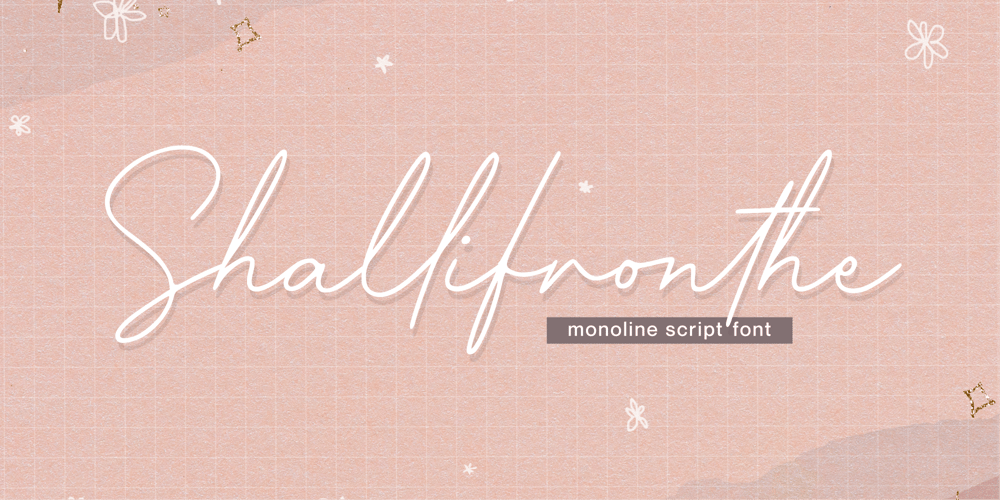
Shallifronthe Font Family was designed by Fachrizal Yusuf and published by Allouse Studio. Shallifronthe contains 1 styles and family package options. Proudly Presenting, Shallifronthe A Monoline Script Font.Shallifronthe is perfect any titles, logo, product packaging, branding project, magazine, social media, wedding, or just used to express words above the background.Shallifronthe also come with Multi-Lingual Support.Enjoy the font, feel free to comment or feedback, send me PM or email. Thank You!